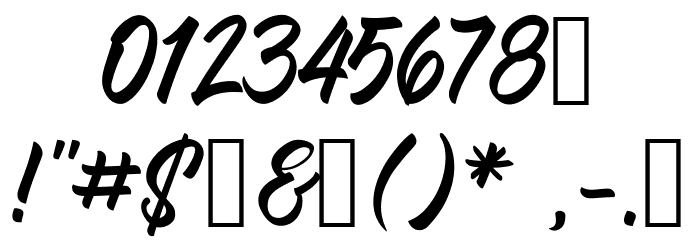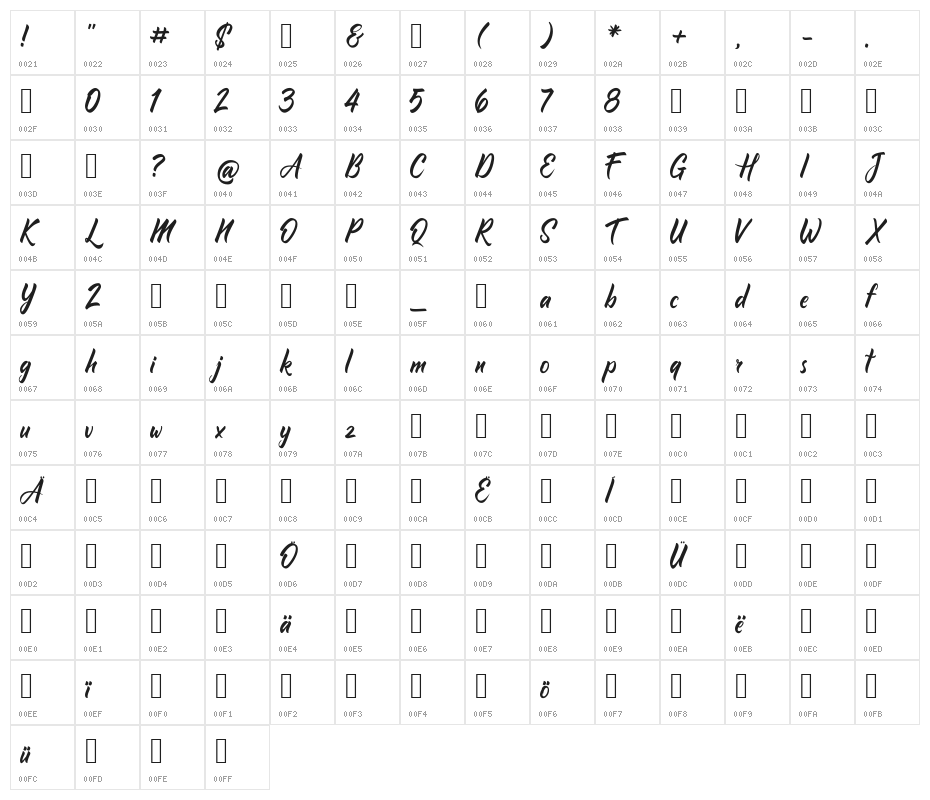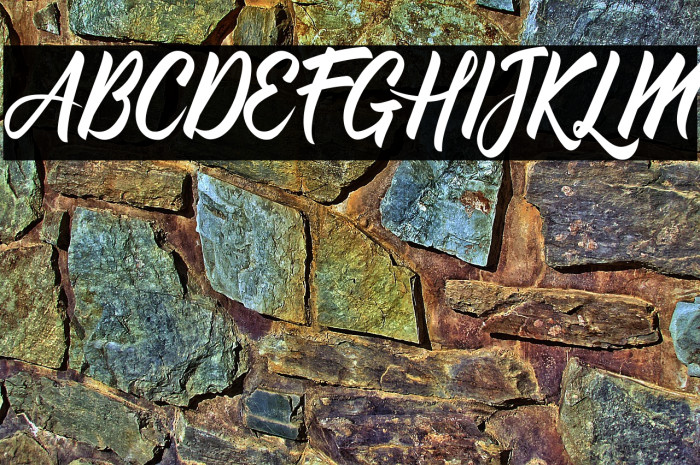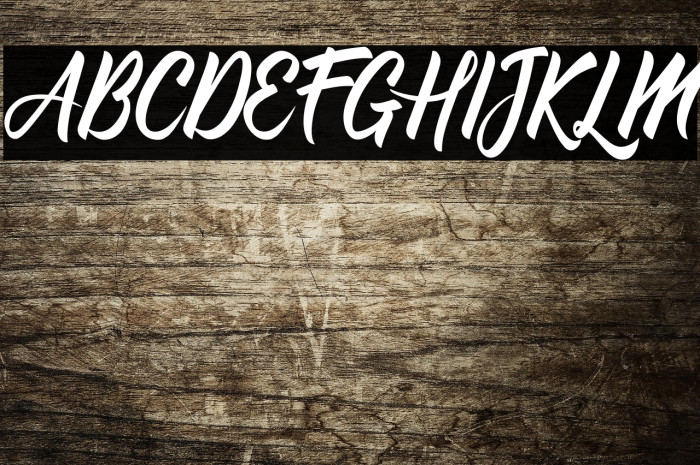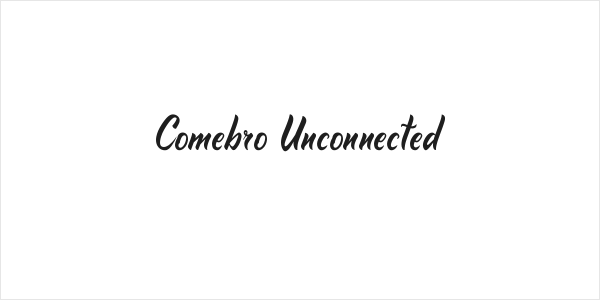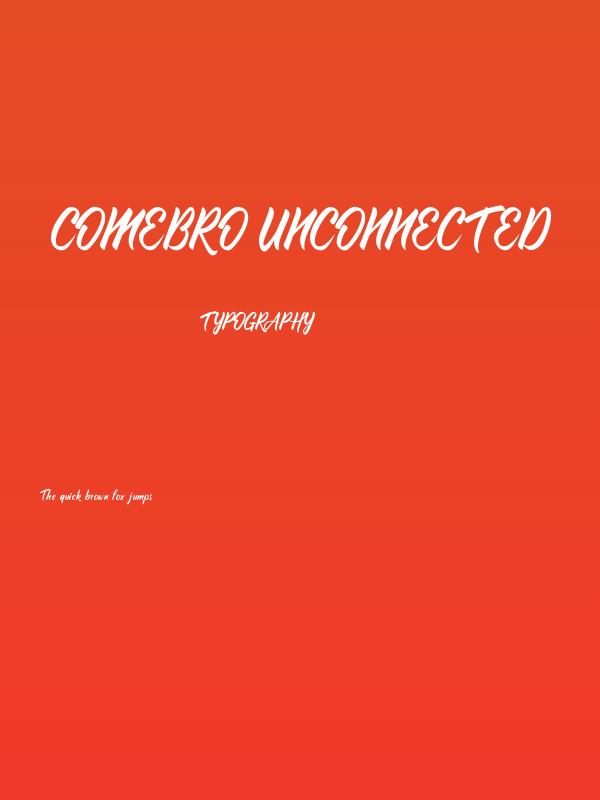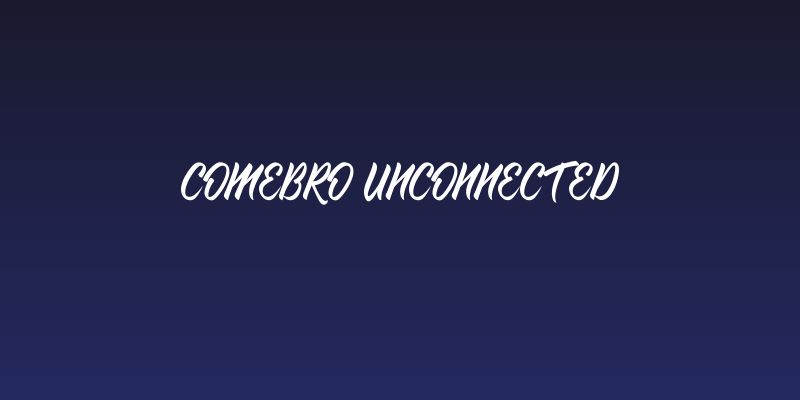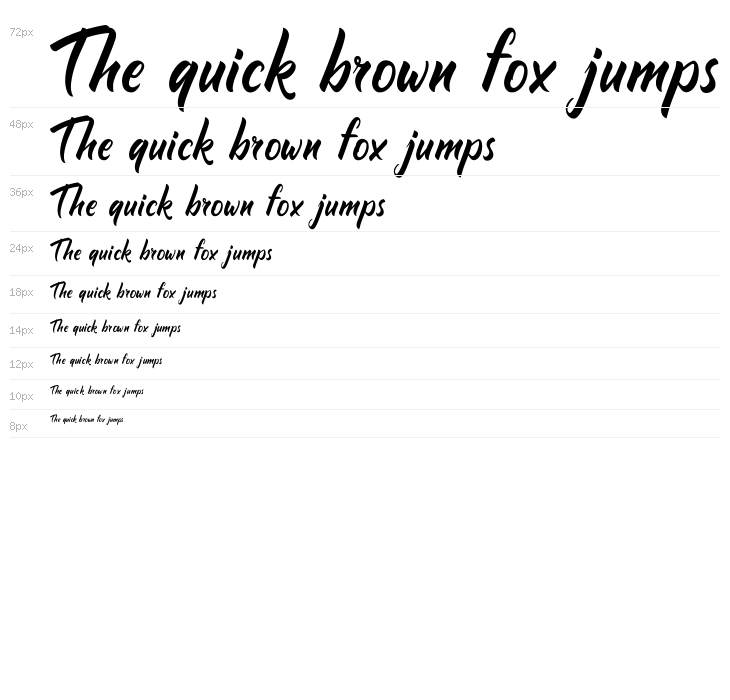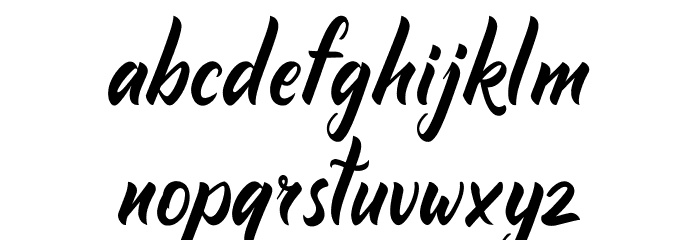
Comebro Unconnected Font
Comebro Unconnected Description
This font features a bold, flowing script style with a dynamic and energetic appearance. The letters are slightly slanted, giving a sense of movement and fluidity. The uppercase characters are elegantly crafted with sweeping curves and a touch of flair, while the lowercase letters maintain a consistent style with a more subtle approach. The numerals are bold and clear, matching the overall aesthetic of the font. Special characters are included, maintaining the same stylistic elements. The font is suitable for creating eye-catching headlines, logos, and other design elements that require a touch of elegance and personality.